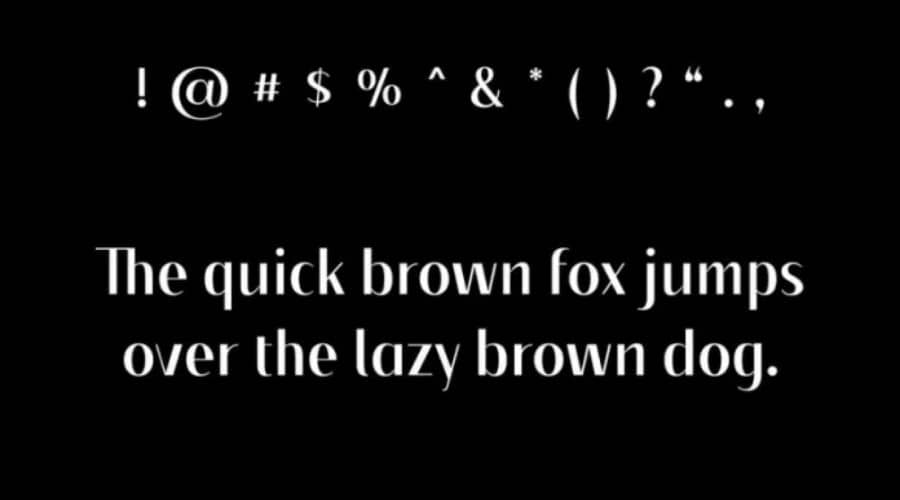
Floane Font Family
Because it’s a sans serif typeface, it’s ideal for any form of serif-related project. There are four different styles in the Floane font family, which were created and released by Daler Mukhiddinov. On July 5, 2019, the Font was made public. The Floane Font is available for download or use on your website. Before using it, please read the license details. Unicode Blocks such as Basic Latin and Latin-1 Supplement are included in the typeface. Afrikaans, Albanian, Catalan, Croatian, Czech, Danish, Dutch, English, Estonian, Finnish, French, German, Hungarian, Icelandic, Italian, Latvian, Lithuanian, Maltese, Norwegian, Polish, Portuguese, Romanian, Slovak, Slovenian, English, Swedish, Turkish, Zulu are among the languages supported by the Floane font. The Typeface Family Floane Sans Serif is a lovely and elegant font. It supports western, central, and south eastern European languages as well as pinyin and features capital letters, numbers, punctuation, and symbols. The font has the capacity to add a touch of class to any project. Give your designer career a boost. This appealing typeface can be used to create professional graphics. To add diversity to the character, swash variants have been introduced to the typeface, which exudes energy and assertiveness!
Quotes, notes, cards, posters, branding, products, logos, blog, fashion and apparel, notes, quotes, prints, social media, and other crafts are all appropriate uses for the Floane typeface. Because of its bold and polished appearance, the Font can also be used in the headings or subheadings of any cartoon or other form of the television show. Because the typeface is classified as comic and miscellaneous, it can be used in any project where miscellaneous fonts are preferred.
Floane Font Family View
| Name | Floane Font Family |
| Style | Sans Serif |
| Designer | Daler Mukhiddinov |